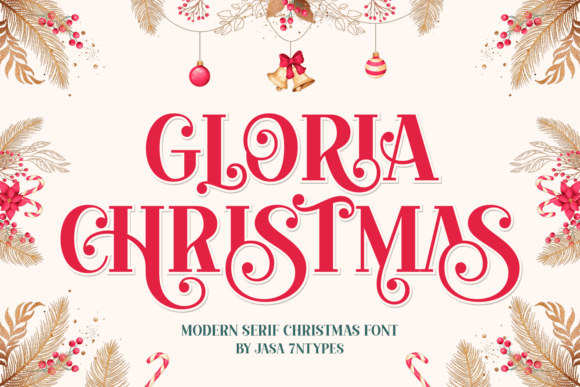
Deck the Halls with Holiday Cheer
As the snowflakes start to fall and the twinkling lights adorn the streets, the holiday season is in full swing. It’s that magical time of the year when creativity knows no bounds, and designers like you get to unleash their festive flair. You’re rummaging through your font library, searching for the perfect typography to bring your holiday designs to life. And then, it hits you – the perfect combination of elegance and playfulness that screams ‘holiday cheer’.
Enter the Gloria Christmas Font, a show-stopping display serif that’s engineered to make your holiday graphics shine. With its bold, red lettering and ornate glyphs, this font is the perfect way to infuse your designs with a sense of grandeur and festive charm. Whether you’re creating a bold title, a festive banner, or a sophisticated seasonal greeting, the Gloria Christmas Font is sure to bring your holiday designs to life in a big way.
Gloria Christmas Font Key Features
- Unique Characteristics: This font features a unique blend of traditional and modern elements, with intricate details and ornaments that evoke a festive atmosphere.
Gloria Christmas Font Review
As a designer, I’ve had the chance to work with a variety of fonts, and Gloria Christmas Font is one of the more unique ones I’ve encountered. ✨ I love the festive feel it gives to any design project, perfect for the holiday season.
Here are some of the things I like about Gloria Christmas Font:
- It’s playful and whimsical, making it perfect for children’s books, greeting cards, or other festive projects.
- The bold lines and decorative elements add a touch of elegance to any design.
- It’s available in a range of styles, from regular to bold and italic, giving you plenty of options to choose from.
- ⚠️ The font may be a bit too ornate for some projects, making it difficult to read at smaller sizes.
- ⚠️ Some of the decorative elements may not be suitable for all audiences, so be mindful of your target demographic.
- ⚠️ The font may not be as versatile as some other fonts, so be prepared to get creative with your design.
Overall, I think Gloria Christmas Font is a great choice for holiday-themed projects, but it’s essential to use it thoughtfully and consider its limitations.
The Gloria Christmas Font is ideal for creating festive and holiday-themed designs. Here are some tips to get the most out of it:
- Use the font in combination with other festive elements, such as holly leaves or snowflakes.
- Use the font for holiday-themed invitations, cards, and gift tags.